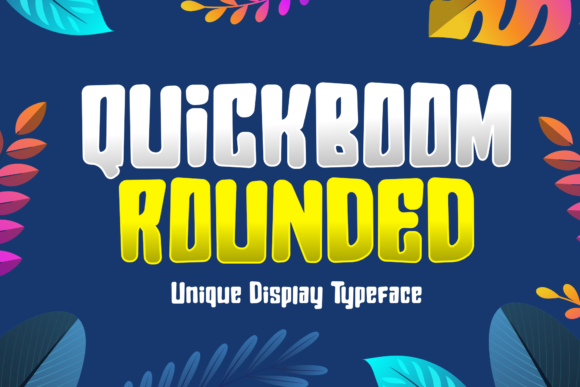
Behold, font enthusiasts and design aficionados, the awe-inspiring Quickboom Rounded Font, a testament to the harmonious fusion of boldness and fluidity. This meticulously crafted display font, the brainchild of the talented Hayletter Creative, beckons you to embark on a typographic odyssey.
With its captivating curves and unwavering confidence, Quickboom Rounded commands attention, demanding to be seen and admired. Its deliberate stroke width variation exudes a sense of movement and energy, while its rounded terminals lend an air of playfulness, inviting you to embrace your inner creativity.
A font of extraordinary versatility, Quickboom Rounded adapts effortlessly to a myriad of design endeavors. Whether you seek to craft captivating headlines that leap off the screen, design T-shirts that exude personality, or create logos that leave a lasting impression, this font has you covered. Imagine your designs transformed, imbued with a unique character that sets them apart from the ordinary.
Step into the world of Quickboom Rounded and discover a font that ignites your imagination and sets your creativity ablaze. Its carefully balanced proportions and impeccable kerning ensure flawless readability, making your words sing with clarity and precision. Bask in the compliments as your designs garner admiration from all who behold them.
With Quickboom Rounded as your creative companion, you hold the power to elevate your designs to unprecedented heights. Its effortless charm will captivate audiences, leaving them spellbound by your typographic prowess. Indulge in the freedom to express yourself fully, knowing that Quickboom Rounded will faithfully translate your vision into a visual masterpiece.